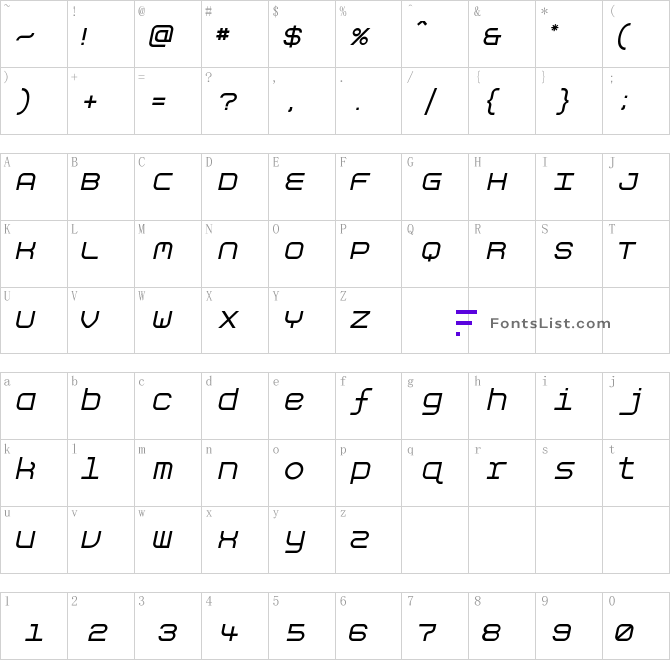
- Font Name:Aspirin-Intoxicate
Aspirin-Intoxicate-Regular.ttf is a very beautiful artistic font, Aspirin-Intoxicate-Regular.ttf is widely used in the design and printing of various books and pictures,Aspirin-Intoxicate-Regular.ttf has a strong visual impact,Aspirin-Intoxicate-Regular.ttf is a commonly used font in newspapers, magazines and books, and is used in posters, e-commerce Poster design, store design, logo design, font design and other fields.Aspirin-Intoxicate-Regular.